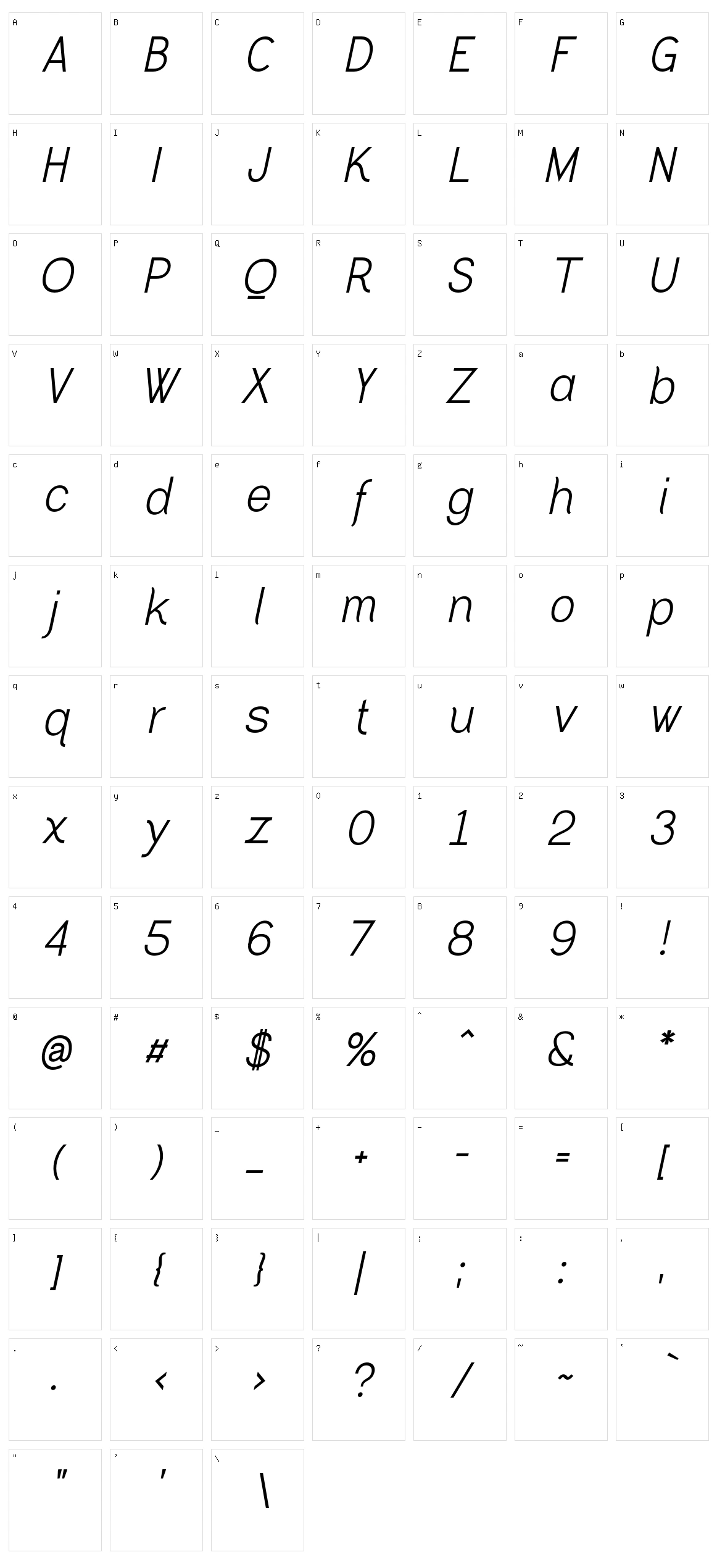
Drawn and created by Mans Greback, this lettering has a distinct style and a strong personality.
The font is built with advanced OpenType functionality and has a guaranteed top-notch quality, containing stylistic and contextual alternates, ligatures and more features; all to give you full control and customizability.
It has extensive lingual support, covering all Latin-based languages, from North Europe to South Africa, from America to South-East Asia.
It contains all characters and symbols you'll ever need, including all punctuation and numbers.